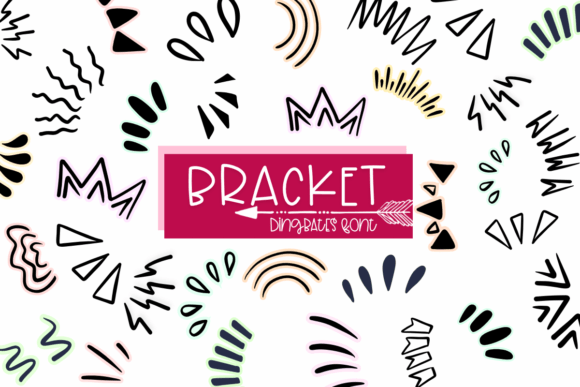
Bracket Font: Elevate Your Creative Projects with a Unique Sketch Style
In the world of typography, fonts play a crucial role in conveying the tone and aesthetic of a project. For creative enthusiasts, designers, and DIY aficionados, finding the right font can make all the difference. Bracket font, a dingbats font with a theme that boasts a distinctive sketch style, has emerged as a versatile and creative solution. This font is designed to enhance a wide range of projects, from wedding invitations and DIY crafts to decorations, logos, and numerous other creative ideas.
What is Bracket Font?
Bracket font is a unique dingbats font that features a sketch style theme. Unlike traditional fonts, dingbats fonts are comprised of symbols, ornaments, and decorative elements rather than alphabetic characters. Bracket font, in particular, offers a fresh and artistic take on traditional dingbats, presenting users with a vast array of creative possibilities.
The sketch style of Bracket font gives it a hand-drawn, organic feel that can add a personal touch to any project. This font is perfect for those looking to infuse their work with a sense of creativity and originality.
Exploring the Uses of Bracket Font
Bracket font’s versatility is one of its most appealing features. Here are some of the many creative projects where Bracket font can make a significant impact:
- Wedding Invitations: Create custom wedding invitations that reflect the couple’s personality with Bracket font. The sketch style adds a romantic and whimsical touch to wedding stationery.
- DIY and Crafts: Whether you’re making personalized gifts, decorations, or cards, Bracket font can help you add a unique and artistic element to your DIY projects.
- Decorations: Use Bracket font to create decorative elements for parties, events, or even home decor. The font’s sketch style can add a festive and personalized touch.
- Logos and Branding: For businesses and entrepreneurs, Bracket font can serve as an inspiration for logos and branding materials. The font’s unique style can help a brand stand out.
- Social Media Graphics: Enhance your social media presence with custom graphics created using Bracket font. The font can add a creative and engaging element to posts, stories, and banners.
The Benefits of Using Bracket Font
Choosing Bracket font for your projects comes with several benefits:
- Uniqueness: Bracket font offers a distinctive sketch style that can set your projects apart from others.
- Versatility: The font’s theme and style make it suitable for a wide range of creative projects.
- Customization: The sketch style of Bracket font allows for a high level of customization, enabling users to adapt the font to their project’s specific needs.
Tips for Working with Bracket Font
To maximize the potential of Bracket font, consider the following tips:
- Mix and Match: Don’t be afraid to combine Bracket font with other fonts or design elements to create a unique look.
- Experiment with Colors: The sketch style of Bracket font looks great in various colors. Try different color schemes to find what works best for your project.
- Pay Attention to Scale: Ensure that the font size is appropriate for your project. Sometimes, larger sizes can add more impact, while smaller sizes can add detail.
- Use it Sparingly: While Bracket font is versatile, using it sparingly can make it more effective. Use it to highlight key elements or add decorative touches.
Bracket font is a powerful tool for anyone looking to add a creative and artistic touch to their projects. Its unique sketch style and versatility make it an excellent choice for a wide range of applications, from wedding invitations and DIY crafts to logos and social media graphics. By understanding how to use and integrate Bracket font into your work, you can elevate your creative projects and produce visually stunning results.